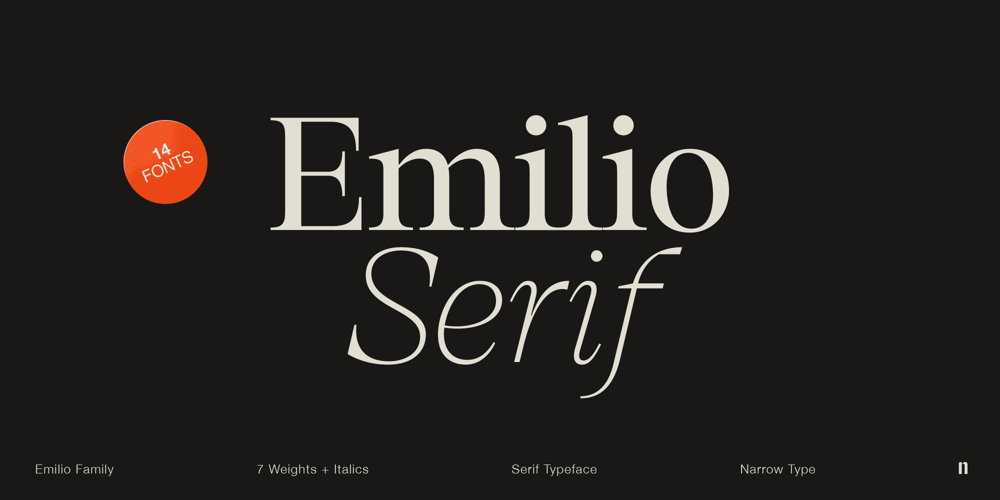
Emilio Font Family was designed by Andrej Sevcik and published by Narrow Type. Emilio contains 14 styles and family package options. Emilio is a modern serif family available in 14 styles. It’s an elegant typeface with friendly and warm personality which seeks a balance between traditional and modern.Emilio is inspired by the visuality of the 1980s and the typefaces that were widely used in advertising at the time, such as Times and Garamond. However, Emilio offers a contemporary take on the serif font family, adding new elements such as reductive, calligraphy-inspired details or the “K” and “R” legs shape. If you want a more traditional look, you can achieve it with the stylistic alternatives available. Of course, the typeface also provides standard and discretionary ligatures and many other Open Type features. In addition, it offers support for most Latin languages.The big headlines and titles are where Emilio shines the most, but due to large x-height and decent contrast will work for smaller text as well. Emilio is the ideal typeface for editorial design, posters, covers, branding and much more.